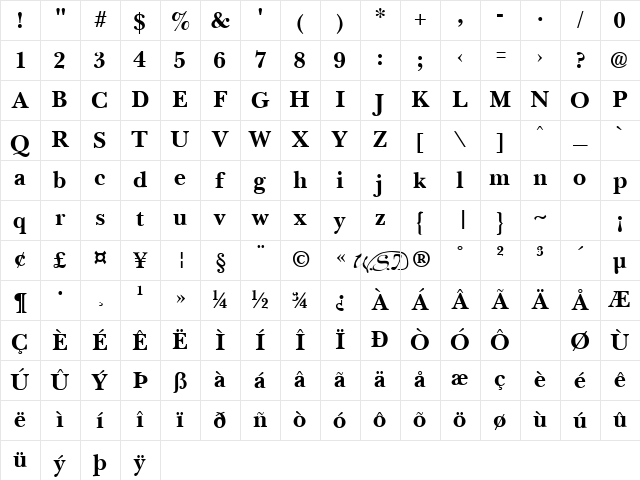
Basset fed
Style: fed
Basset Family
Basset fed
Design Context for Basset
Basset is a composed and adaptable typeface that performs quietly and consistently across a wide range of design contexts.